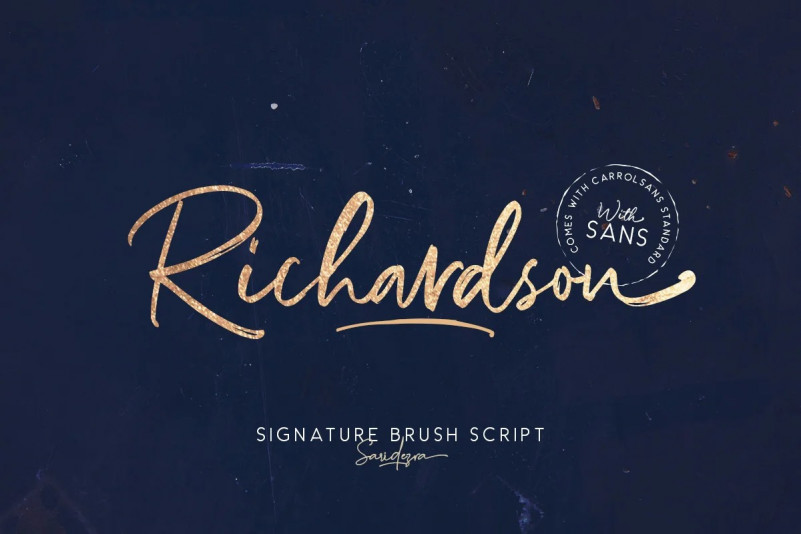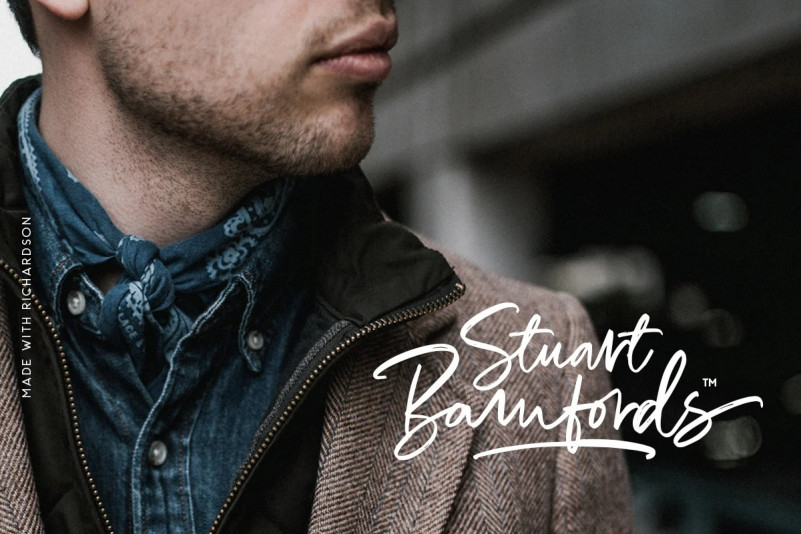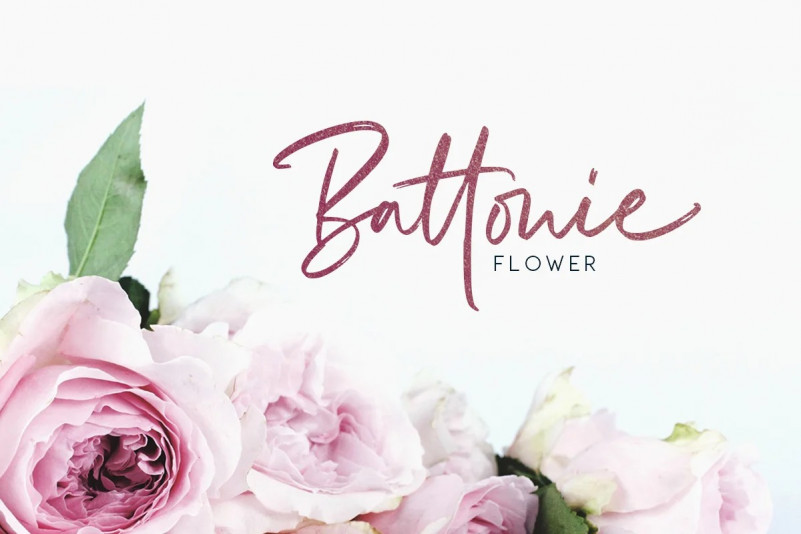
Richardson Font
Introducing, Richardson – Signature Brush, signature script with a lot ligatures!
Richardson – Signature Brush is signature script with textured brush that contain stylistic alternate, underline, and a bunch of ligatures to create your own customized signature or logo design. Richardson – Signature Brush is a signature font that you can use to make a logo for branding, beautiful fashion design, suitable for wedding invitation, or handwritten quote. Also already PUA Encoded!